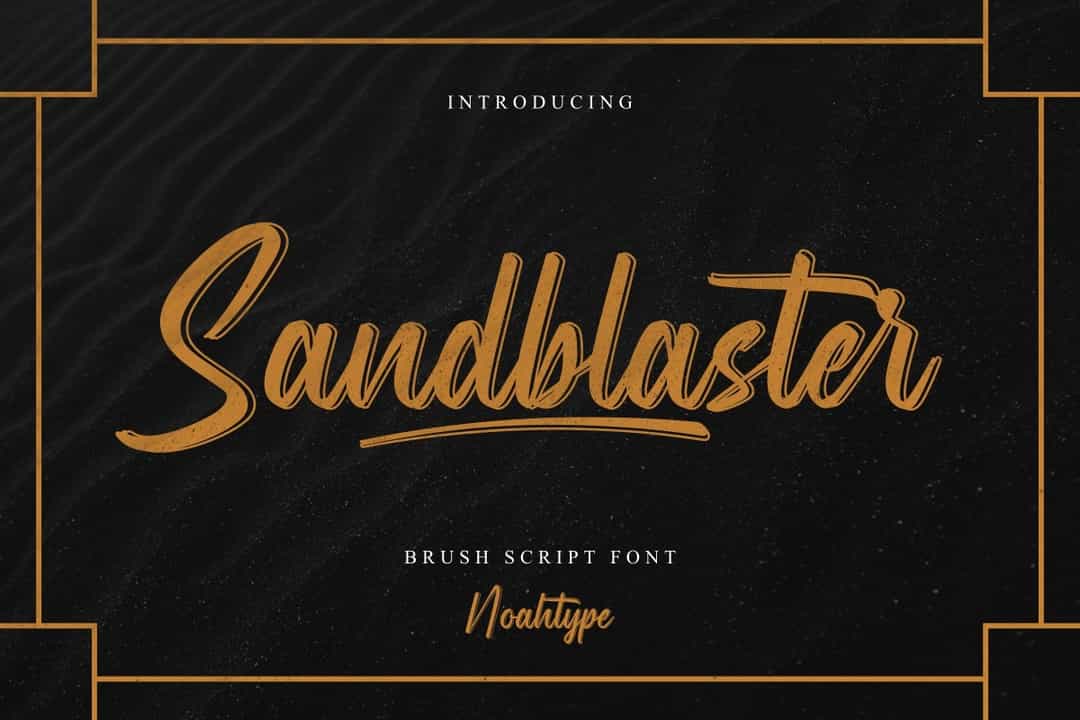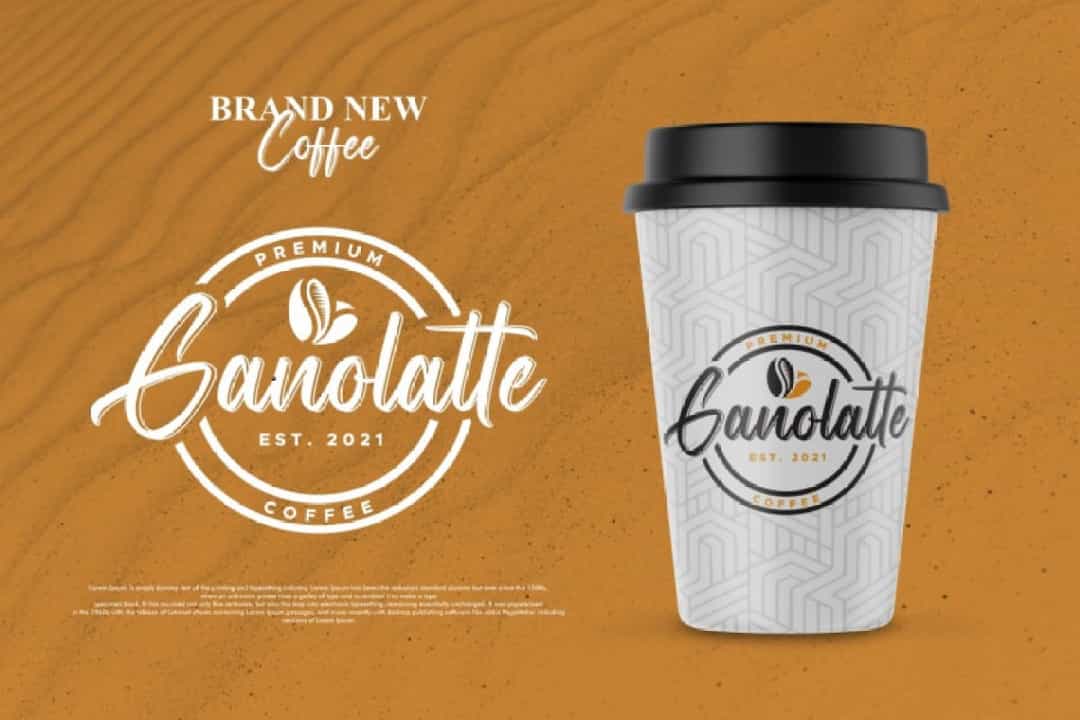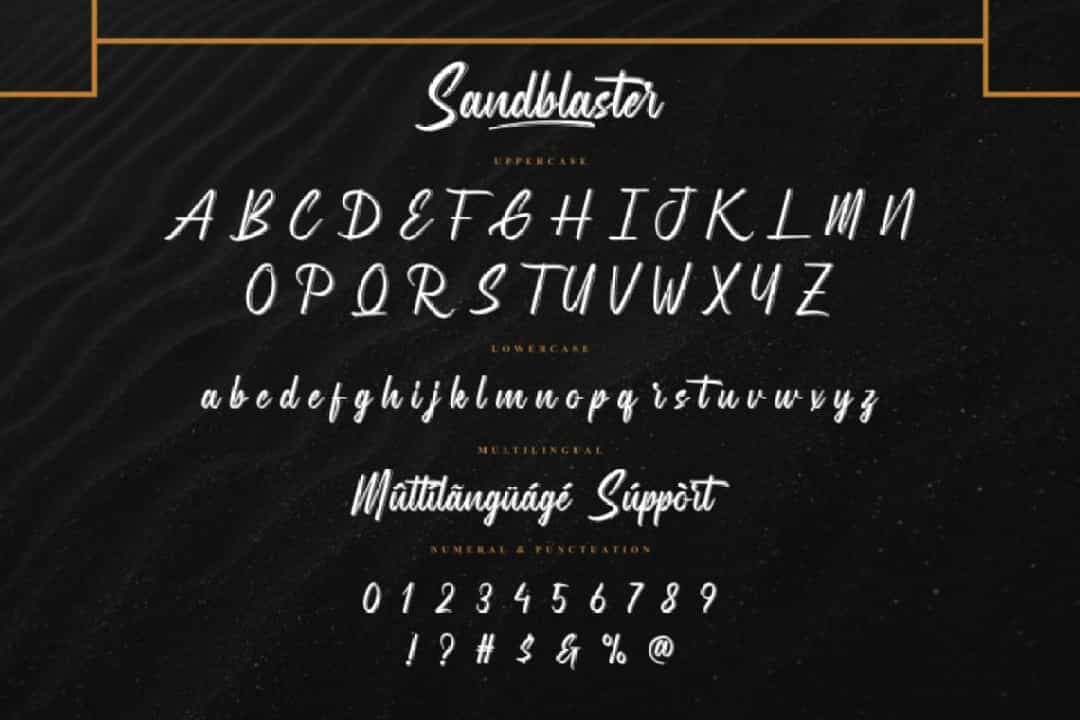
Sandblaster Brush Font by NoahType is a bold and contemporary brush typeface. This font can add distinctive handwriting that adds an unforgettable flair to your designs, adding that personal touch that only handwritten script can provide. Each letter was meticulously handcrafted by designers so as to achieve optimal combinations for every character in each character set.